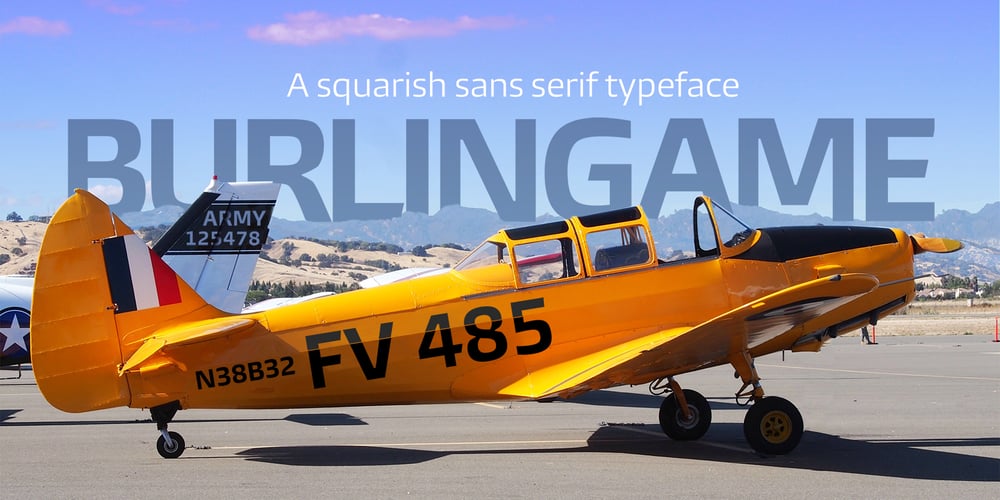
Burlingame
Burlingame font
Burlingame Font Family was designed by Carl Crossgrove and published by Monotype. Burlingame contains 36 styles and family package options. The Burlingame™ typeface family from Carl Crossgrove is a sturdy typeface with open, clear shapes that offer high legibility, even in constrained digital settings, or in challenging print environments such as tiny pharmaceutical labels. The design performs with strength and grace at any size. It’s a multifaceted, multipurpose typeface family – a perfect addition to the Monotype® library.